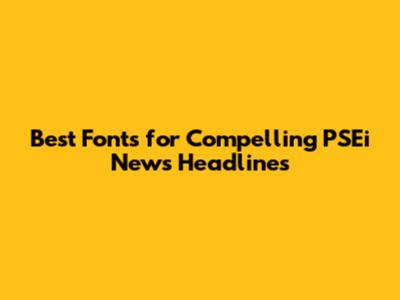
Best Fonts For Compelling PSEi News Headlines
Choosing the right font for news headlines, especially when dealing with financial topics like the Philippine Stock Exchange Index (PSEi), is super important. The font you pick can seriously affect how readers perceive the news – whether they find it trustworthy, easy to read, or even engaging enough to click on the article in the first place. So, let’s dive into what makes a font perfect for PSEi news headlines, considering everything from readability to the psychological impact it has on your audience. It's not just about picking something that looks good; it’s about choosing a font that enhances the message and draws readers in. Think of it like this: the font is the voice of your headline. You want that voice to be clear, confident, and credible, especially when you're talking about something as crucial as the stock market. We also need to consider where these headlines will be displayed. Is it a website, a mobile app, or even a traditional newspaper? Each medium has its own set of requirements and limitations. For example, a font that looks great on a desktop screen might appear pixelated or blurry on a smaller mobile device. Therefore, optimizing fonts for various platforms is a key aspect of making sure your PSEi news headlines grab attention and are easy on the eyes.
Understanding Font Psychology
Font psychology is a fascinating field that explores how different fonts can evoke different emotions and associations. For example, serif fonts (like Times New Roman or Georgia) often convey a sense of tradition, authority, and reliability. They're the kind of fonts that make you think of old newspapers and established institutions. On the other hand, sans-serif fonts (like Arial or Helvetica) tend to project a more modern, clean, and approachable image. These fonts are often used by tech companies and online publications that want to appear cutting-edge and accessible. When it comes to PSEi news headlines, you need to consider what kind of message you want to send. Do you want to convey a sense of gravitas and trustworthiness? Or do you want to appear more modern and dynamic? The font you choose should align with the overall tone and style of your news publication. However, it's also important to think about your target audience. Are you trying to reach seasoned investors who are familiar with financial jargon? Or are you trying to attract a younger, more tech-savvy audience who might be intimidated by traditional financial reporting? By understanding the psychology behind different fonts and considering your audience's preferences, you can make informed decisions that enhance the impact of your headlines. So, before you settle on a font, take some time to explore the different options and experiment with different combinations. You might be surprised at how much of a difference the right font can make.
Top Font Choices for PSEi News Headlines
Alright, guys, let's get into some specific font recommendations for PSEi news headlines. I've broken it down into serif and sans-serif options, so you can pick what vibes best with your style. For serif fonts, Georgia is a solid choice. It's super readable, even at smaller sizes, and it has a classic, trustworthy feel. Times New Roman is another classic, but it can sometimes feel a bit dated. If you're going for something a little more modern, consider Merriweather. It's a relatively new serif font that was designed specifically for on-screen reading. Now, if you're more into sans-serif fonts, Arial is always a safe bet. It's clean, simple, and universally recognized. Helvetica is another popular option, but it can sometimes feel a bit generic. For something a little more unique, check out Roboto. It's a modern sans-serif font that was designed by Google for Android. It's super versatile and looks great in a variety of contexts. Another great option is Open Sans. It's highly legible and has a friendly, approachable feel. When choosing a font, remember to consider the overall design of your website or publication. You want to pick a font that complements your existing branding and creates a cohesive look and feel. Also, don't be afraid to experiment with different font pairings. Sometimes, combining a serif font for the headline with a sans-serif font for the body text can create a visually appealing and engaging effect.
Readability and Accessibility Considerations
When selecting fonts for PSEi news headlines, readability and accessibility are paramount. After all, what good is a visually appealing headline if your audience struggles to decipher it? Readability refers to how easily the text can be read and understood. Several factors influence readability, including font size, letter spacing, line height, and contrast. To ensure optimal readability, choose fonts that are clear and well-defined, even at smaller sizes. Avoid overly decorative or stylized fonts that can be difficult to read. Pay close attention to letter spacing and line height, as these can significantly impact readability. Insufficient letter spacing can make the text appear cramped and difficult to read, while excessive letter spacing can make the text appear disjointed. Similarly, inadequate line height can cause the lines of text to overlap, while excessive line height can create too much white space between the lines. Contrast is another crucial factor to consider. Ensure that there is sufficient contrast between the text and the background. Dark text on a light background generally provides the best readability. Accessibility, on the other hand, refers to how easily people with disabilities can access and use your content. When it comes to fonts, accessibility considerations include providing alternative text for images of text, using sufficient color contrast, and avoiding fonts that are difficult to read for people with visual impairments. By prioritizing readability and accessibility, you can ensure that your PSEi news headlines are easily accessible to a wide audience, regardless of their abilities.
Font Pairing Strategies
Okay, so you've picked out a killer font for your PSEi news headlines. But what about the body text? Choosing the right font pairing can make a huge difference in the overall look and feel of your news publication. The goal is to find fonts that complement each other and create a harmonious visual experience. One popular strategy is to pair a serif font for the headline with a sans-serif font for the body text. This creates a nice contrast and helps to draw the reader's eye to the headline. For example, you could pair Georgia with Arial or Merriweather with Open Sans. Another approach is to use different weights or styles of the same font family. For example, you could use a bold version of Roboto for the headline and a regular version for the body text. This creates a subtle but effective visual hierarchy. When choosing font pairings, it's important to consider the overall tone and style of your publication. If you're going for a classic, traditional look, you might want to stick with serif fonts for both the headline and the body text. If you're going for a more modern, contemporary look, you might want to experiment with different sans-serif pairings. Ultimately, the best way to find the perfect font pairing is to experiment and see what works best for you. Try out different combinations and get feedback from your colleagues or target audience. Don't be afraid to break the rules and try something unexpected. The most important thing is to choose fonts that are readable, visually appealing, and consistent with your brand.
Optimizing Fonts for Different Platforms
In today's digital landscape, your PSEi news headlines are likely to be viewed on a variety of devices, from desktop computers to smartphones and tablets. Therefore, it's crucial to optimize your fonts for different platforms to ensure a consistent and engaging user experience. One key consideration is font size. What looks great on a large desktop screen might appear tiny and illegible on a small mobile device. To address this, use responsive design techniques to adjust the font size based on the screen size. You can also use media queries in your CSS to specify different font sizes for different devices. Another important factor is font rendering. Different browsers and operating systems may render fonts differently, leading to inconsistencies in appearance. To mitigate this, use font hinting techniques to improve the rendering of fonts on different platforms. Font hinting involves providing instructions to the font renderer on how to display the font at different sizes and resolutions. You can also use web font services like Google Fonts or Adobe Fonts, which automatically optimize fonts for different platforms. These services use advanced techniques like font subsetting and compression to deliver fonts that are optimized for performance and visual quality. Finally, consider the loading time of your fonts. Large font files can significantly slow down your website, leading to a poor user experience. To minimize loading time, use font formats like WOFF2, which are highly compressed and optimized for web use. You can also use techniques like font preloading to load fonts in the background, so they're ready to be displayed when needed. By optimizing your fonts for different platforms, you can ensure that your PSEi news headlines look great and load quickly on any device.
Testing and Iteration
Alright, you've chosen your fonts, paired them perfectly, and optimized them for every platform under the sun. But before you launch your PSEi news headlines into the world, it's essential to test and iterate your font choices to ensure they're truly effective. Start by testing your headlines on different devices and browsers to ensure they render correctly and are easily readable. Pay close attention to font size, letter spacing, line height, and contrast. Get feedback from your colleagues, target audience, or even random strangers. Ask them what they think of the fonts you've chosen. Do they find them easy to read? Do they think they convey the right tone and style? Use A/B testing to compare different font combinations and see which ones perform best. A/B testing involves showing different versions of your headlines to different groups of users and tracking which version gets the most clicks or engagement. Tools like Google Optimize or Optimizely can help you set up and run A/B tests. Based on the feedback and data you collect, iterate your font choices and make adjustments as needed. Don't be afraid to experiment with different fonts and font pairings. The key is to find what works best for your audience and your brand. Remember, choosing the right fonts for your PSEi news headlines is an ongoing process. As your audience evolves and technology changes, you'll need to continually test and iterate your font choices to ensure they remain effective. By taking a data-driven approach and constantly seeking feedback, you can create headlines that are not only visually appealing but also highly engaging and effective at conveying your message.